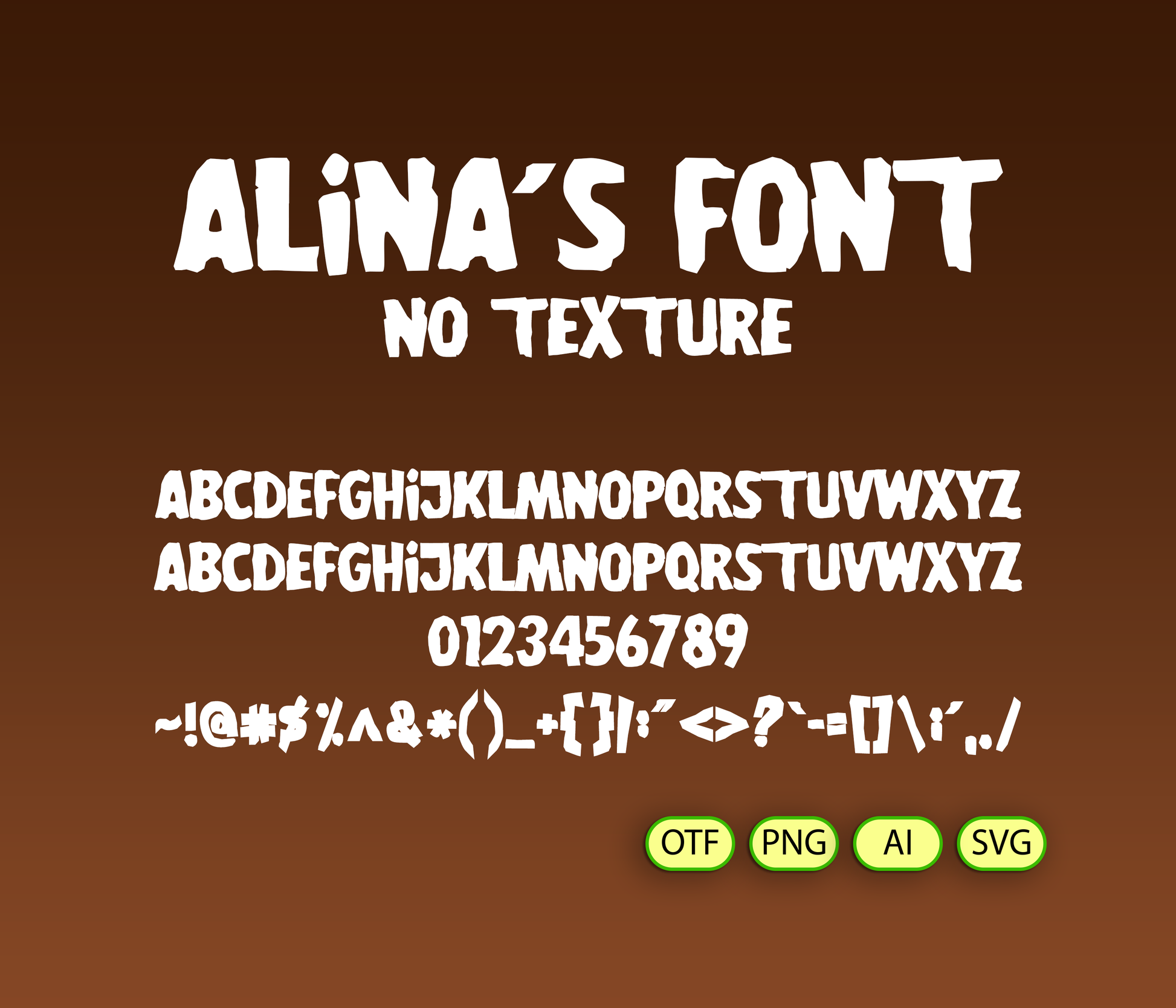
Stone Age Family Font
Step into the whimsical world of prehistoric families, capturing the essence of beloved cave dwellers. Perfect for fans, cartoon creators, event organizers, and designers, this font brings the dynamic, playful spirit of these ancient characters to your projects. Create event invitations, themed merchandise, or digital content with the high-energy vibe of these stone-age champions.
Our Stone Age Family font features rugged, rocky lines and playful characters reflecting the primitive nature of these cave-dwelling heroes. Ideal for:
1. Event Promotions: Create striking posters and promotional materials for cartoon conventions, retro shows, or prehistoric-themed gatherings that capture the essence of stone age fun.
2. Merchandise Design: Perfect for t-shirts, mugs, and family apparel that needs that extra touch of prehistoric charm.
3. Digital Content Creation: Enhance your websites, social media posts, and digital art with the cheerful energy of these cave-dwelling characters.
4. Themed Projects: Ideal for cartoon-inspired designs, children's events, or any project that needs to convey the essence of prehistoric adventure.
5. Custom Party Materials: Perfect for birthday parties, fan gatherings, or any project requiring that blend of humor and stone-age style.
Our font pays tribute to the legendary cave-dwelling family, empowering your designs with its prehistoric and playful spirit. Whether crafting promotional materials, designing merchandise, or adding a dynamic touch to personal projects, this font communicates the bold essence of these characters. Ready to inject stone age fun into your creations? This font is your key to exciting, impactful design.